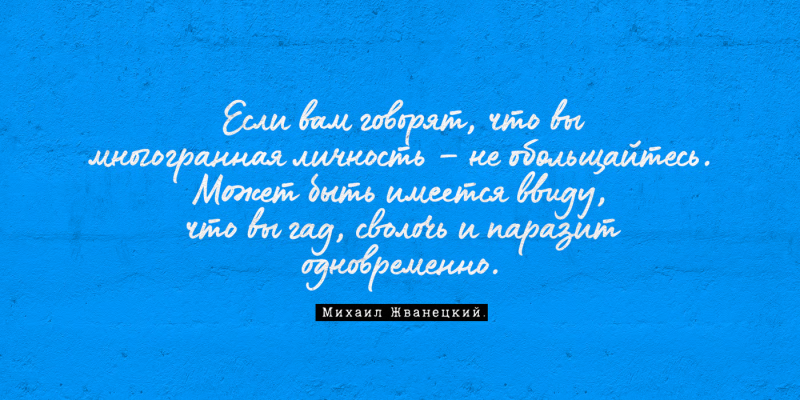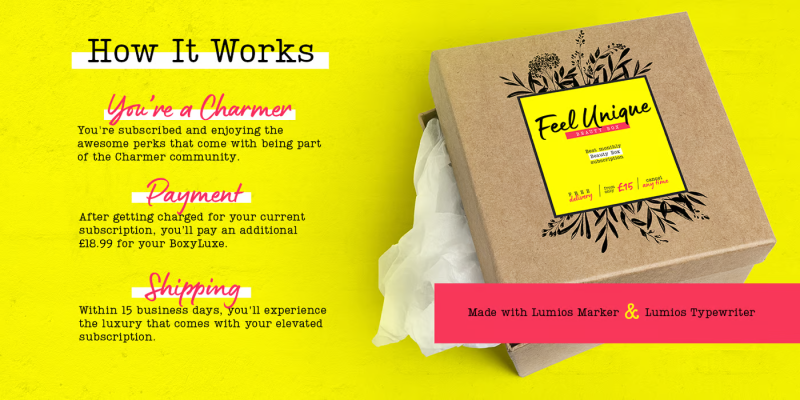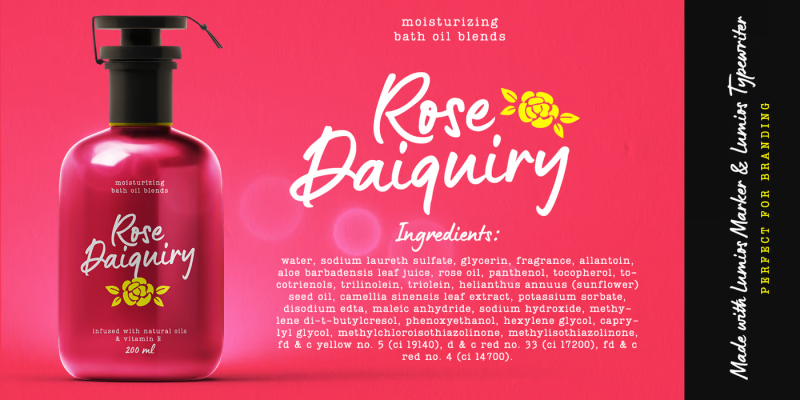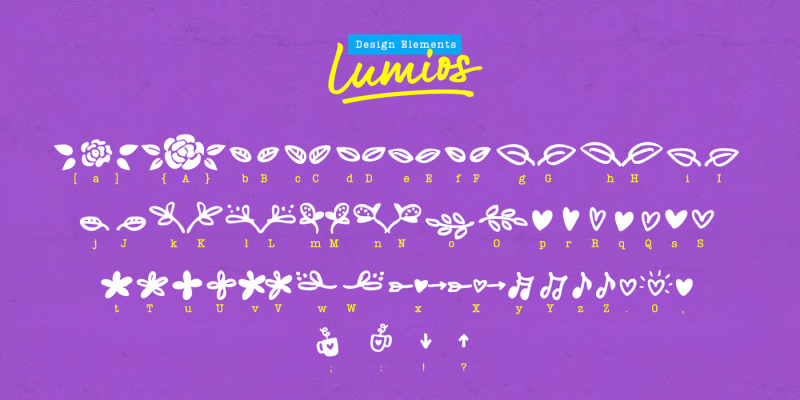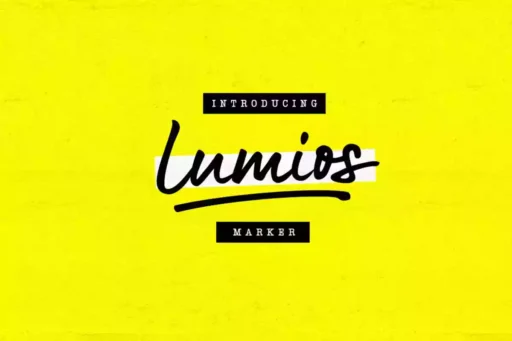
Lumios Marker Font
Lumios Marker is a casual free-hand display font by Elena Genova when she was holding a Pilot Sign Pen. As for the font, it is natural and hand-drawn with the support of Latin and Cyrillic characters, many ligatures, and alternates for both alphabets to provide designers with as many options as possible.
Lumios Marker has each of its letters drawn by hand and has well-defined edges that give a professional touch to your designs while still giving the feel of marker work. This makes it perfect for branding, greeting cards, posters and many more.
Multilingual Support: It has all the Latin and Cyrillic alphabets with a plethora of ligatures and alternates for both Latin and Cyrillic.
Design Elements: Lumios Marker also has a number of design elements that you can use in conjunction with other fonts, for example Lumios Typewriter, and gives a perfect harmony.
Hand-Crafted Precision: Every glyph is drawn by hand and despite the fact they look well-designed, they still have a freehand look about them.
Branding: That handwritten font makes logos and brand marks look personal and friendly.
Greeting Cards & Invitations: The font is very easygoing and makes the personal letterhead look more homey and less formal.
Lumios Marker Font is a Script And Handwritten font that brings a professional and versatile look to your projects. Lumios Marker is a casual free-hand display font by Elena Genova when she was holding a Pilot Sign Pen.